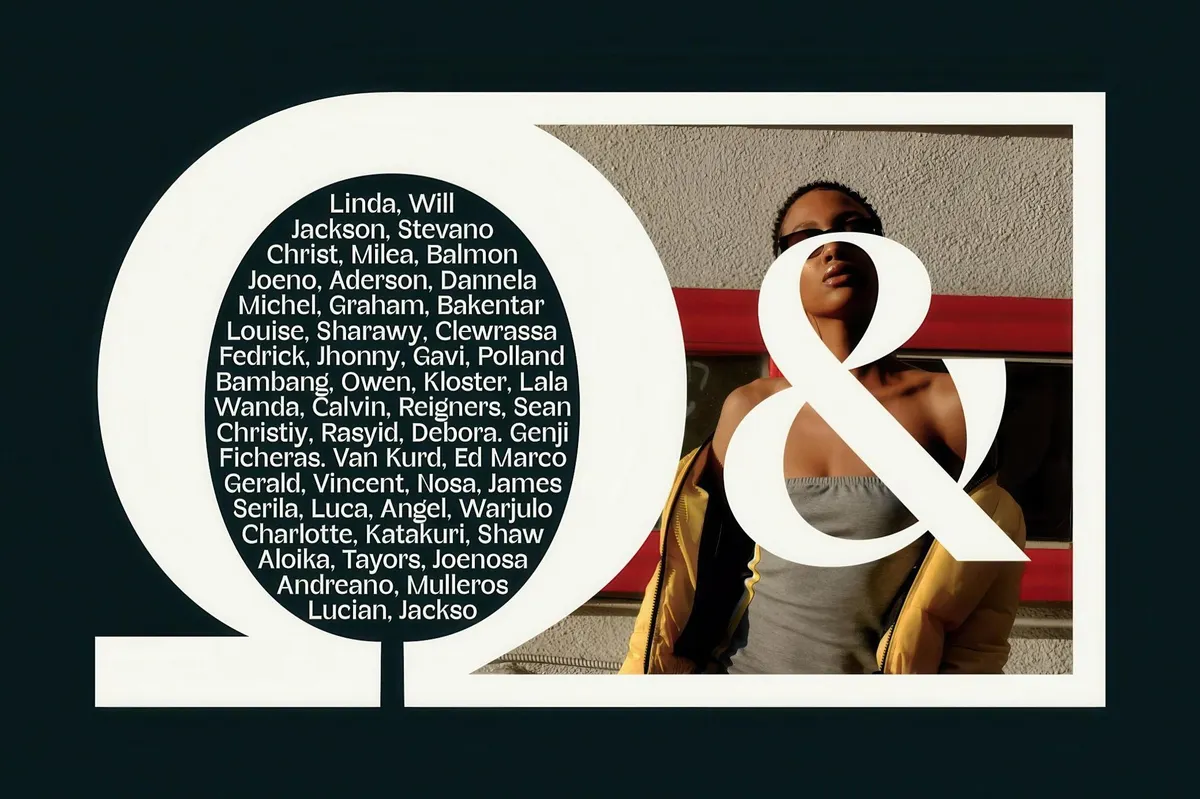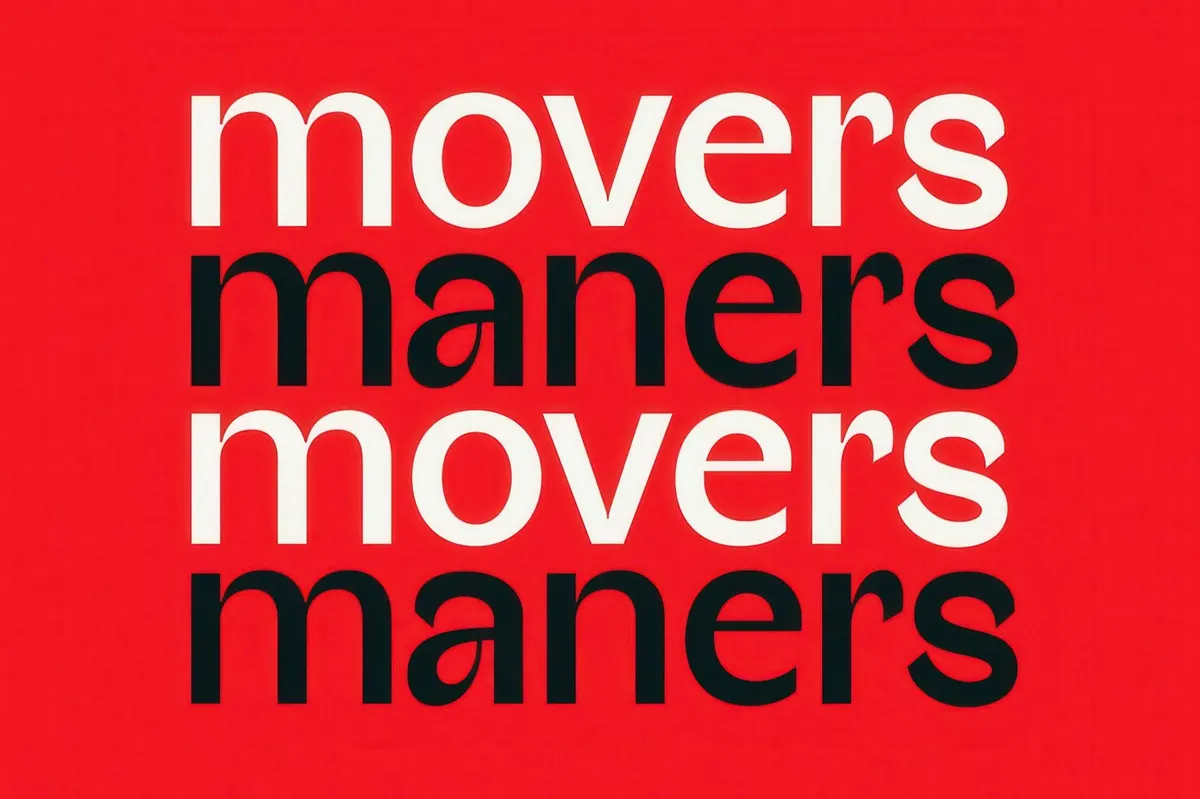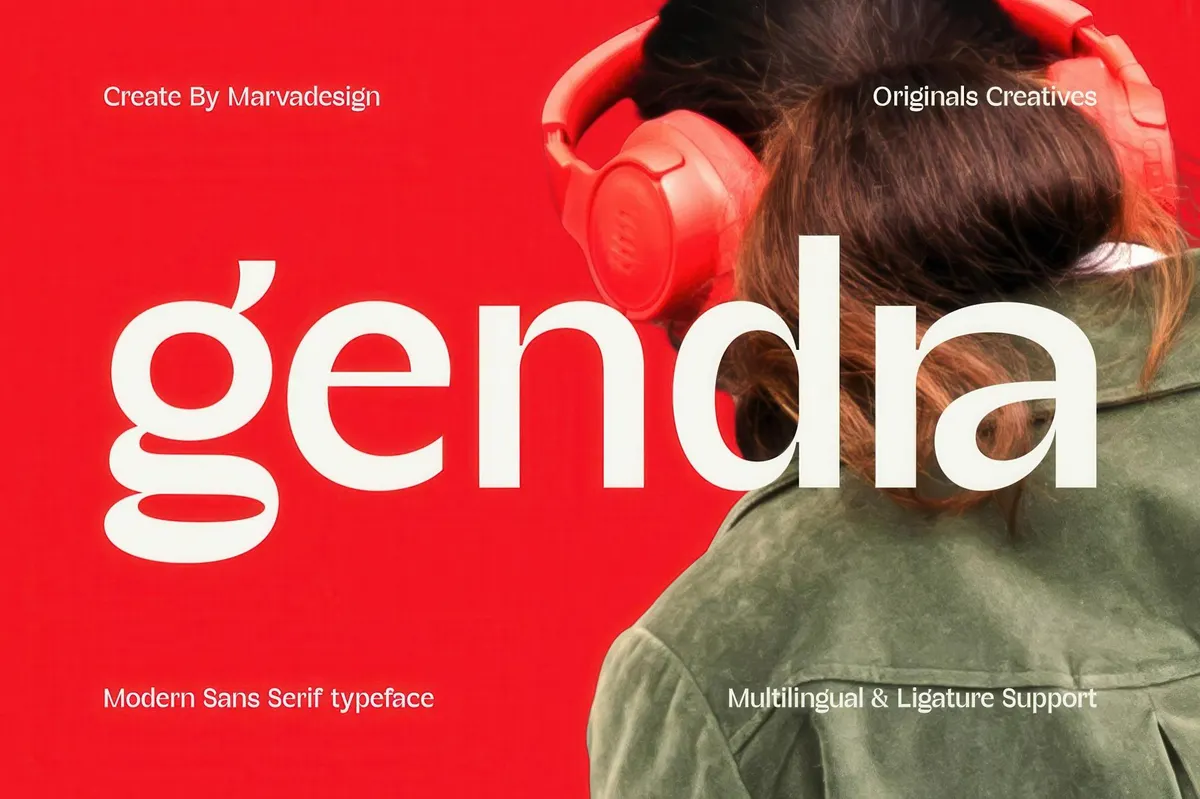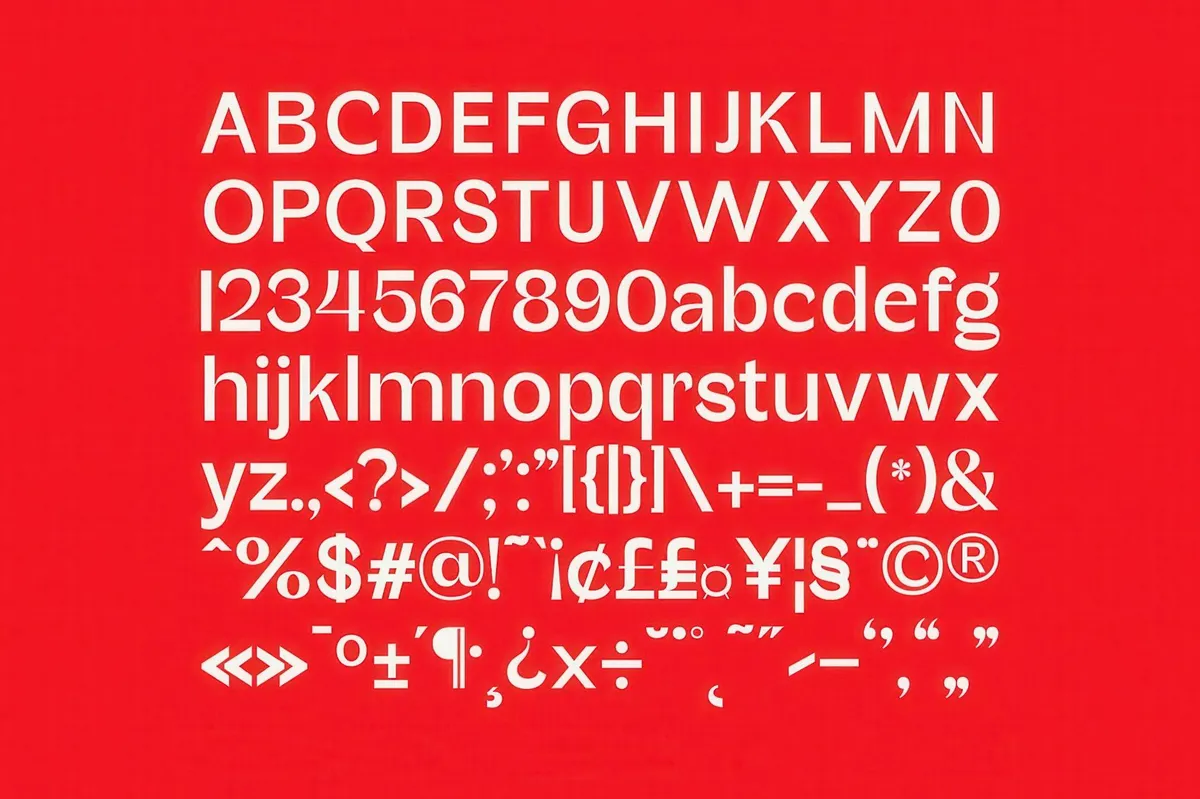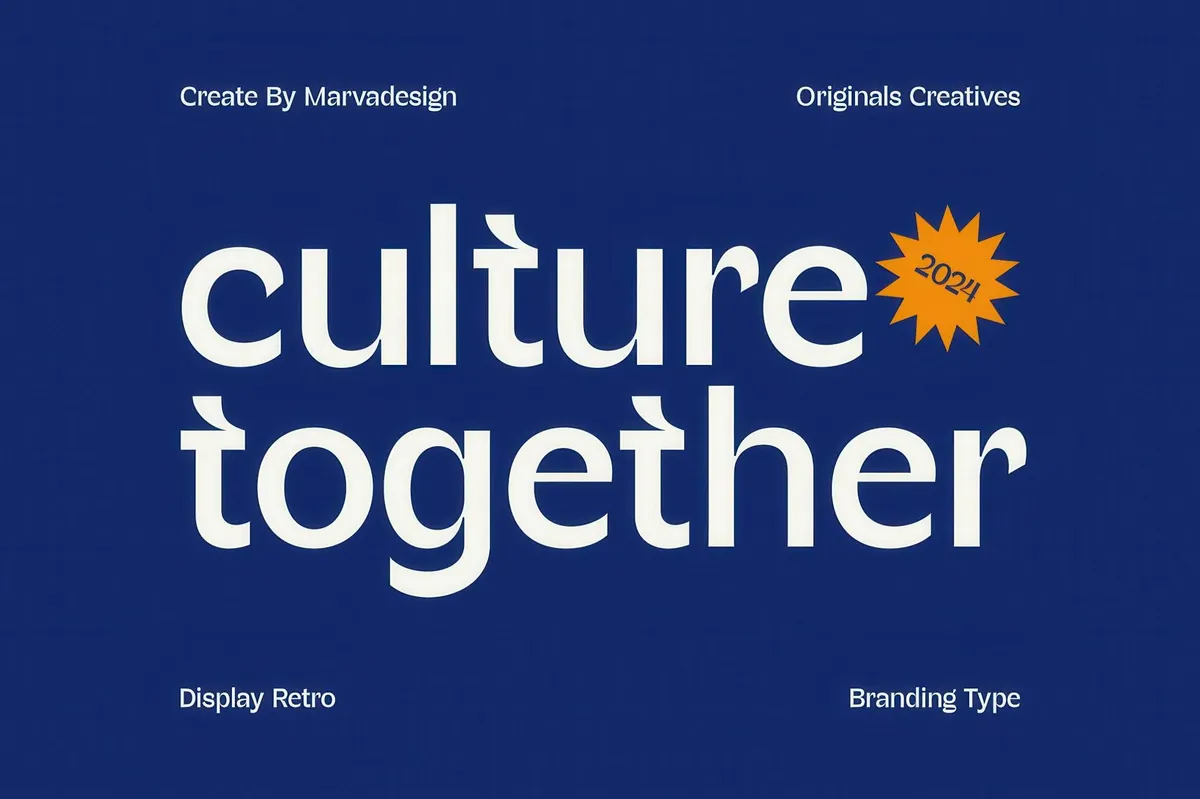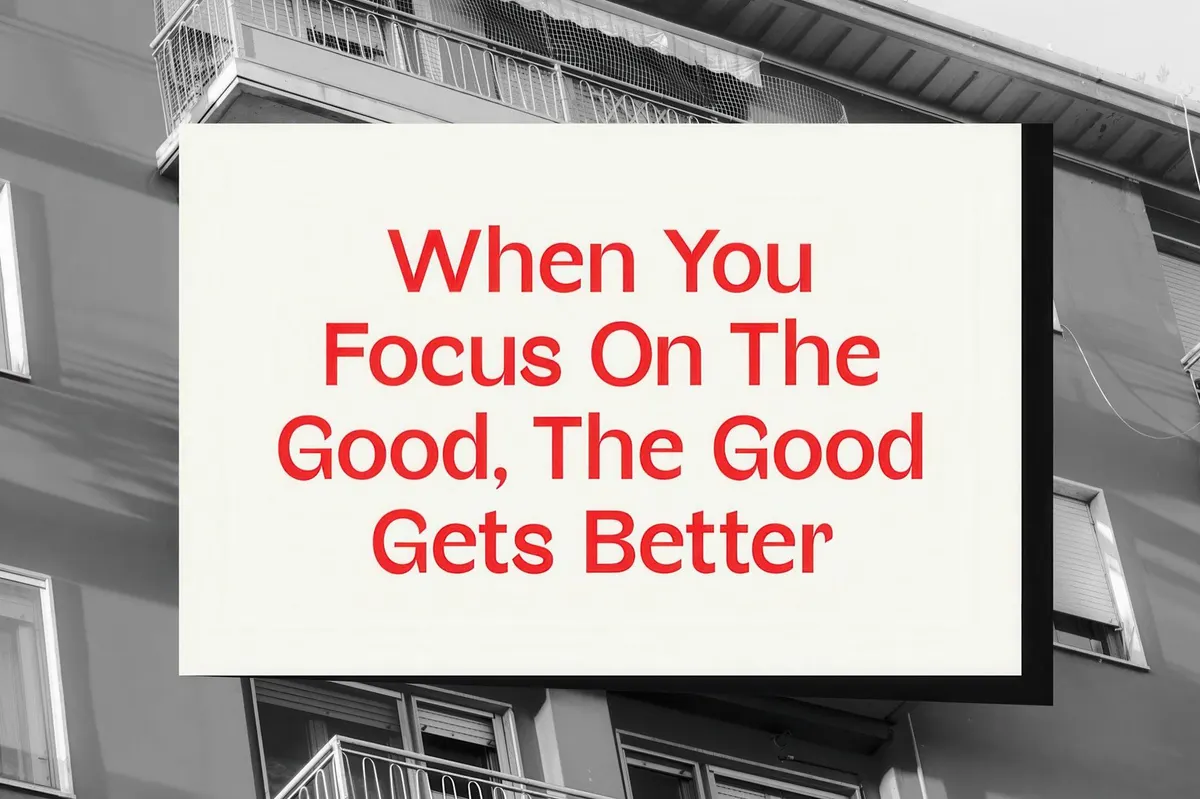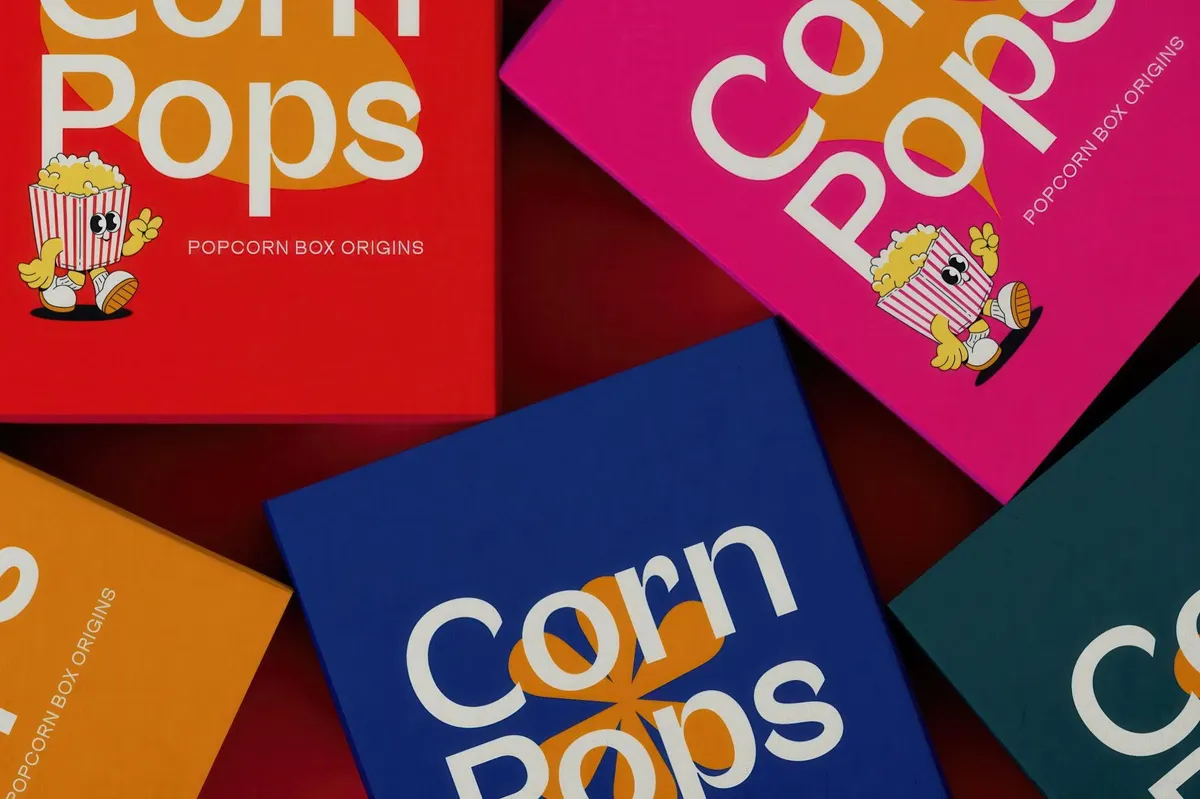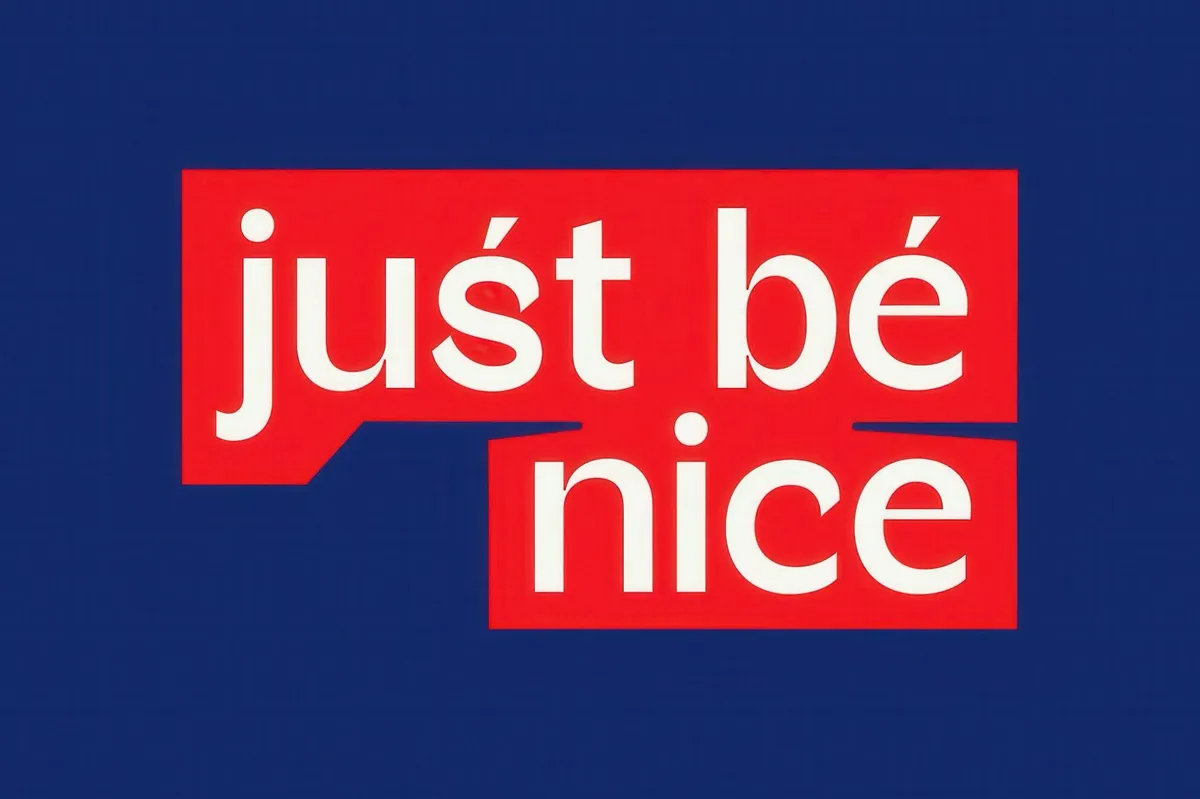
Gendra — Modern Sans Serif
Gendra
Gendra is a modern sans-serif typeface, an example of a clean, minimal, and contemporary look. It brings a geometric sans-serif structure, complemented by smooth curves & balanced proportions. Slightly rounded edges come up for a softer, more approachable feel. Gendra provides a complete character set, plus ligature and multilingual support.
The font has a modern yet timeless quality that fits well in digital and print media. It's highly versatile for branding, editorial, UI/UX, and advertising. You can freely use it in tech startups, fashion branding, social media graphics, and typographic layouts.